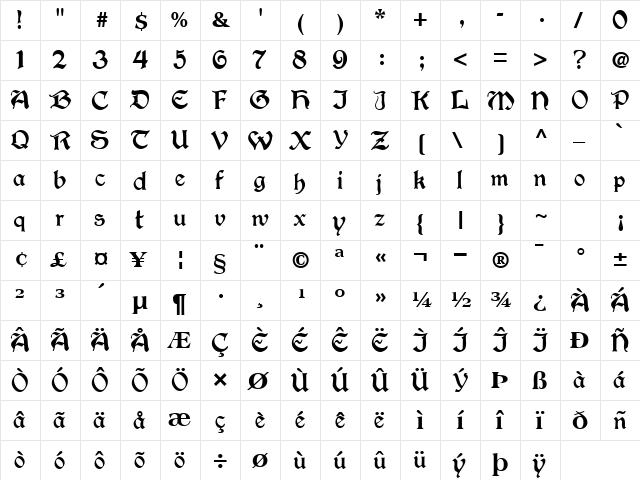
ConcordiaSSK Regular
Design Context for ConcordiaSSK Typeface
ConcordiaSSK is a composed and adaptable typeface that performs quietly and consistently across a wide range of design contexts.